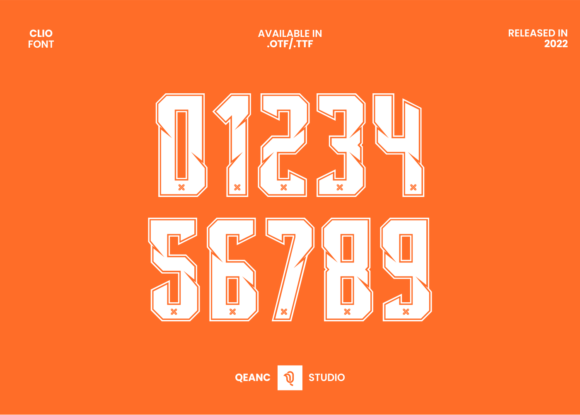
Introducing Clio Font: The Ultimate Choice for Sports and Racing Themes
Are you looking for a font that can add a touch of excitement and energy to your sports or racing-themed projects? Look no further than Clio Font, an awesome and cool display font inspired by football and sport. In this article, we’ll take a closer look at Clio Font, its features, and how it can elevate your creative ideas to the next level.
What is Clio Font?
Clio Font is a display font designed specifically for sports and racing-themed projects. Its unique design is inspired by the world of football and sport, making it the perfect choice for logos, posters, t-shirts, and any other creative project that requires a bold and eye-catching font. With Clio Font, you can add a touch of professionalism and style to your designs, making them stand out from the crowd.
Key Features of Clio Font
- Unique Design: Clio Font boasts a unique design that is inspired by the world of football and sport. Its bold and eye-catching style makes it perfect for sports and racing-themed projects.
- Display Font: Clio Font is a display font, making it ideal for headlines, titles, and other creative projects that require a bold and eye-catching font.
- Versatile: Clio Font is a versatile font that can be used for a wide range of creative projects, including logos, posters, t-shirts, and more.
- Easy to Read: Despite its bold design, Clio Font is easy to read, making it perfect for use in a variety of creative projects.
Why Choose Clio Font?
So, why should you choose Clio Font for your sports or racing-themed projects? Here are just a few reasons:
- Stand Out: Clio Font is designed to make your creative projects stand out from the crowd. Its unique design and bold style ensure that your projects will grab attention and leave a lasting impression.
- Professional Look: Clio Font gives your creative projects a professional look that is perfect for sports and racing themes. Its bold and eye-catching design makes it ideal for use in logos, posters, and other creative projects.
Creative Projects that Clio Font is Perfect For
Clio Font is perfect for a wide range of creative projects, including:
- Logos: Clio Font is perfect for creating logos for sports teams, racing teams, and other organizations that need a bold and eye-catching font.
- Posters: Clio Font is ideal for creating posters for sports and racing events. Its bold design and easy-to-read style make it perfect for use in posters.
- T-Shirts: Clio Font is perfect for creating custom t-shirts for sports teams, racing teams, and other organizations. Its bold design and easy-to-read style make it perfect for use on t-shirts.
- Social Media Graphics: Clio Font is perfect for creating social media graphics for sports and racing teams. Its bold design and easy-to-read style make it perfect for use in social media graphics.
In conclusion, Clio Font is an awesome and cool display font inspired by football and sport. Its unique design and bold style make it perfect for sports and racing-themed projects, including logos, posters, t-shirts, and more. With Clio Font, you can add a touch of professionalism and style to your creative projects, making them stand out from the crowd. So why wait? Download Clio Font today and start creating amazing creative projects that will leave a lasting impression.
- What is Clio Font?: Clio Font is a display font inspired by football and sport. Its unique design and bold style make it perfect for sports and racing-themed projects.
- Is Clio Font easy to read?: Yes, Clio Font is easy to read despite its bold design. Its clear and simple style makes it perfect for use in a variety of creative projects.